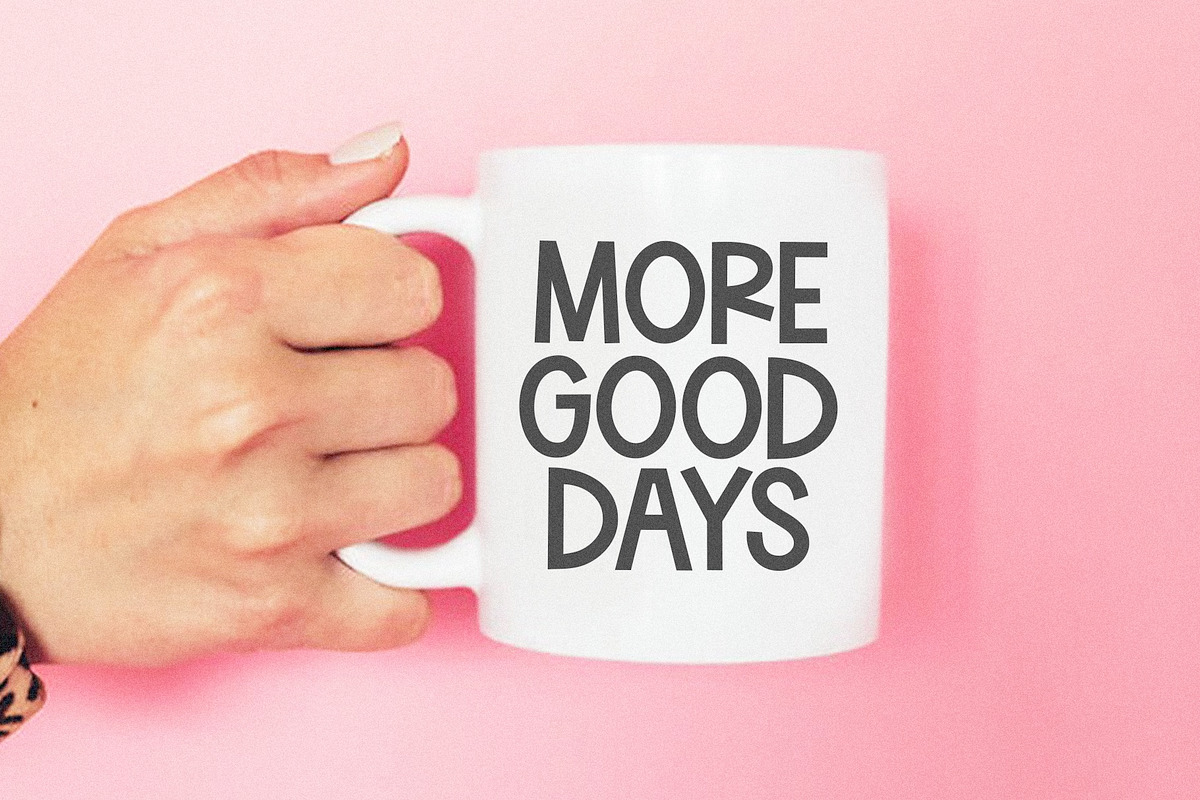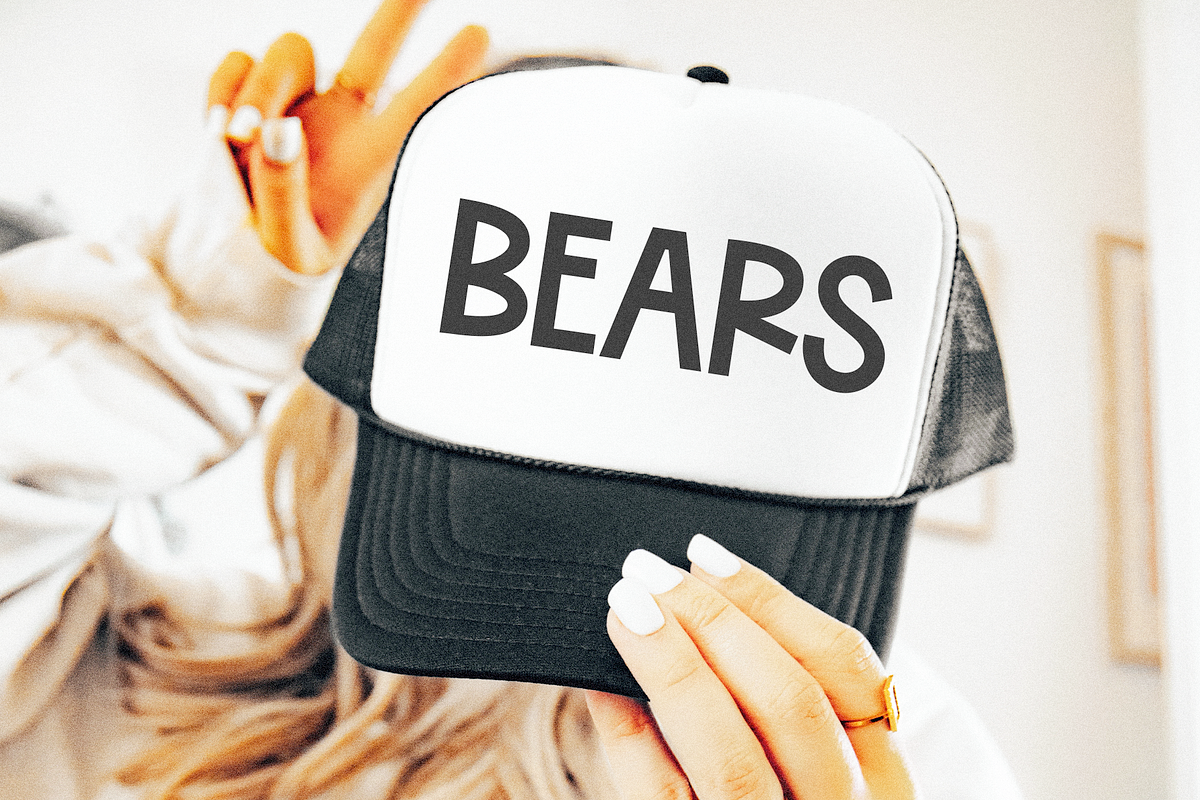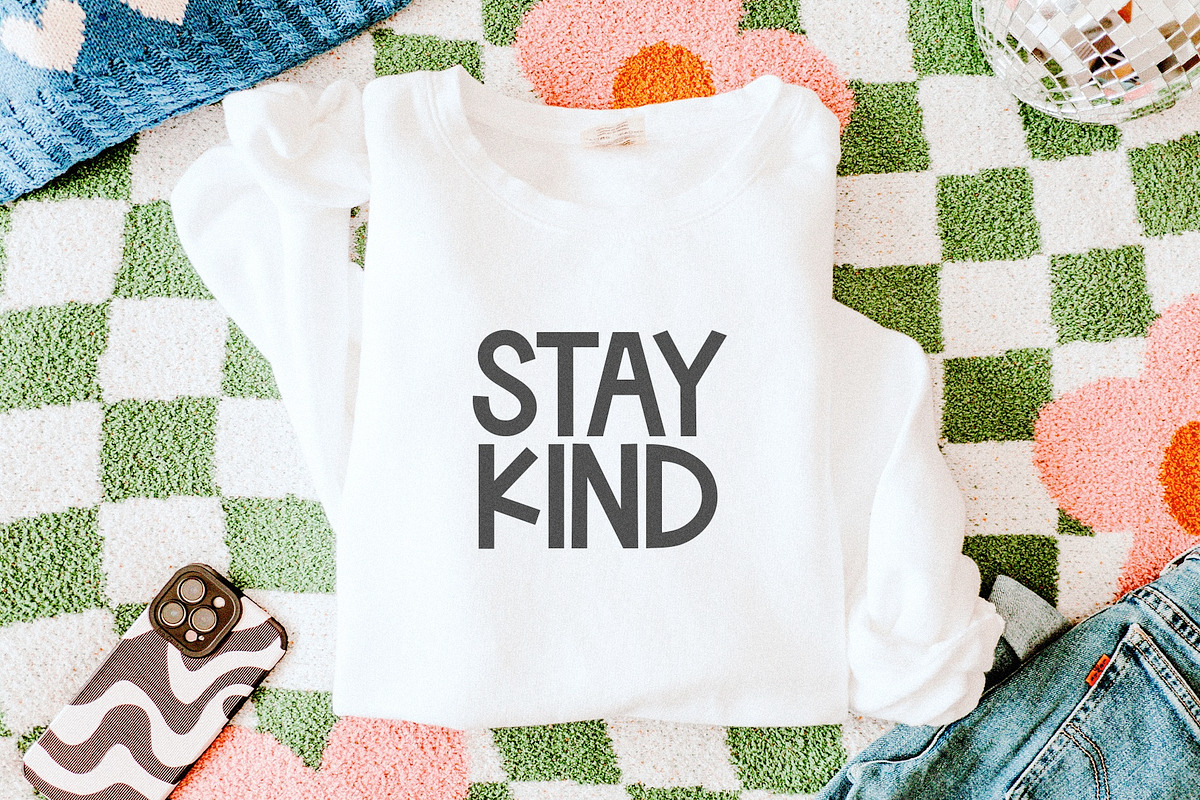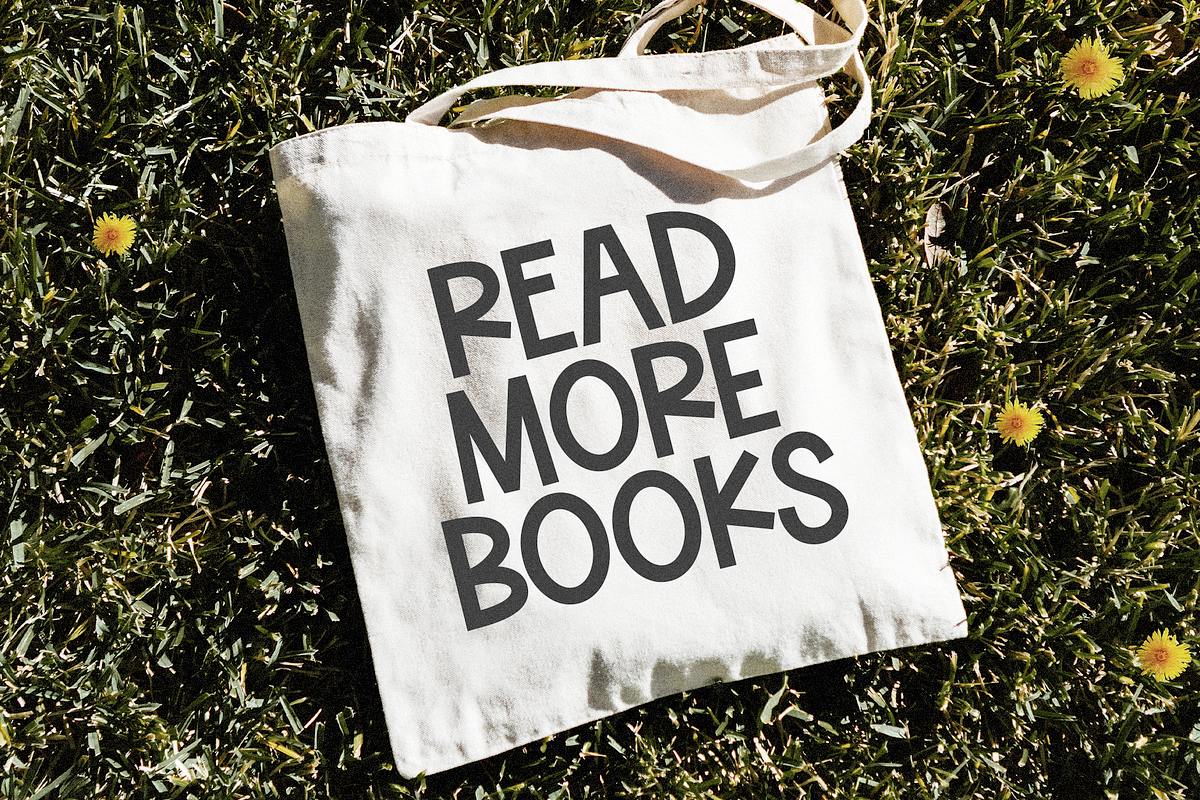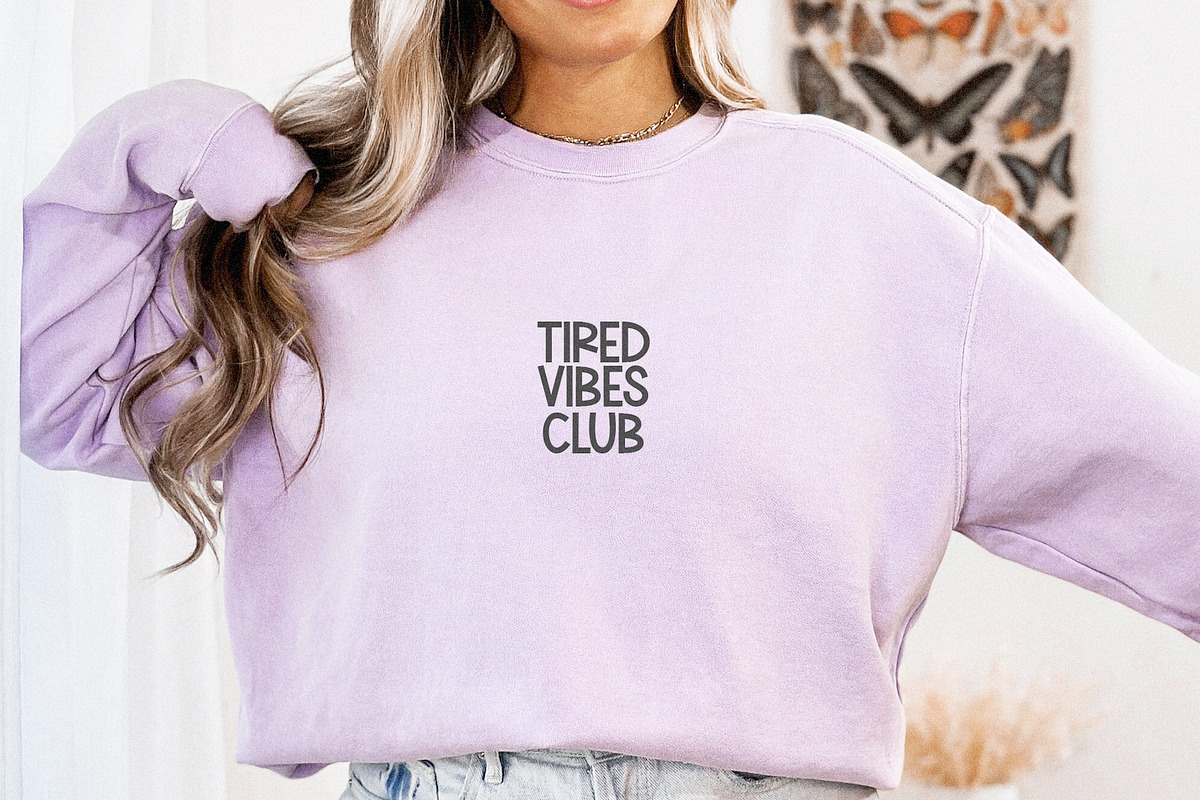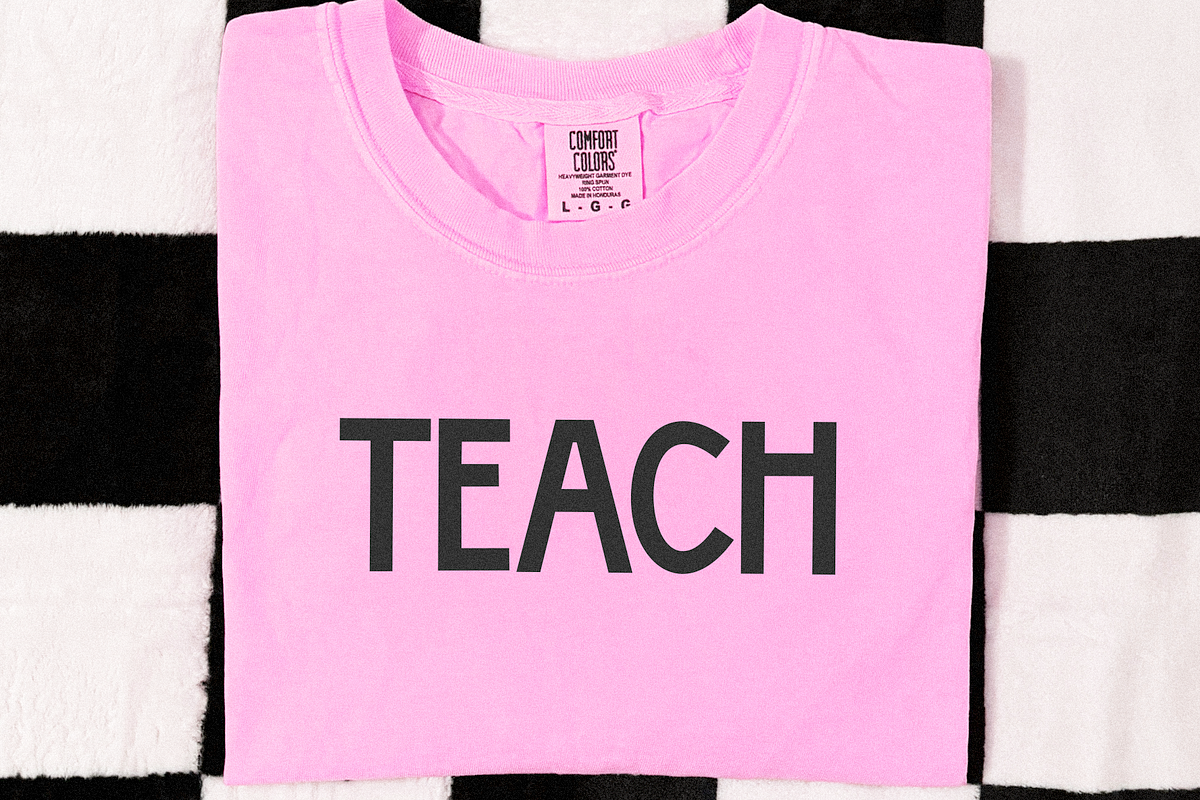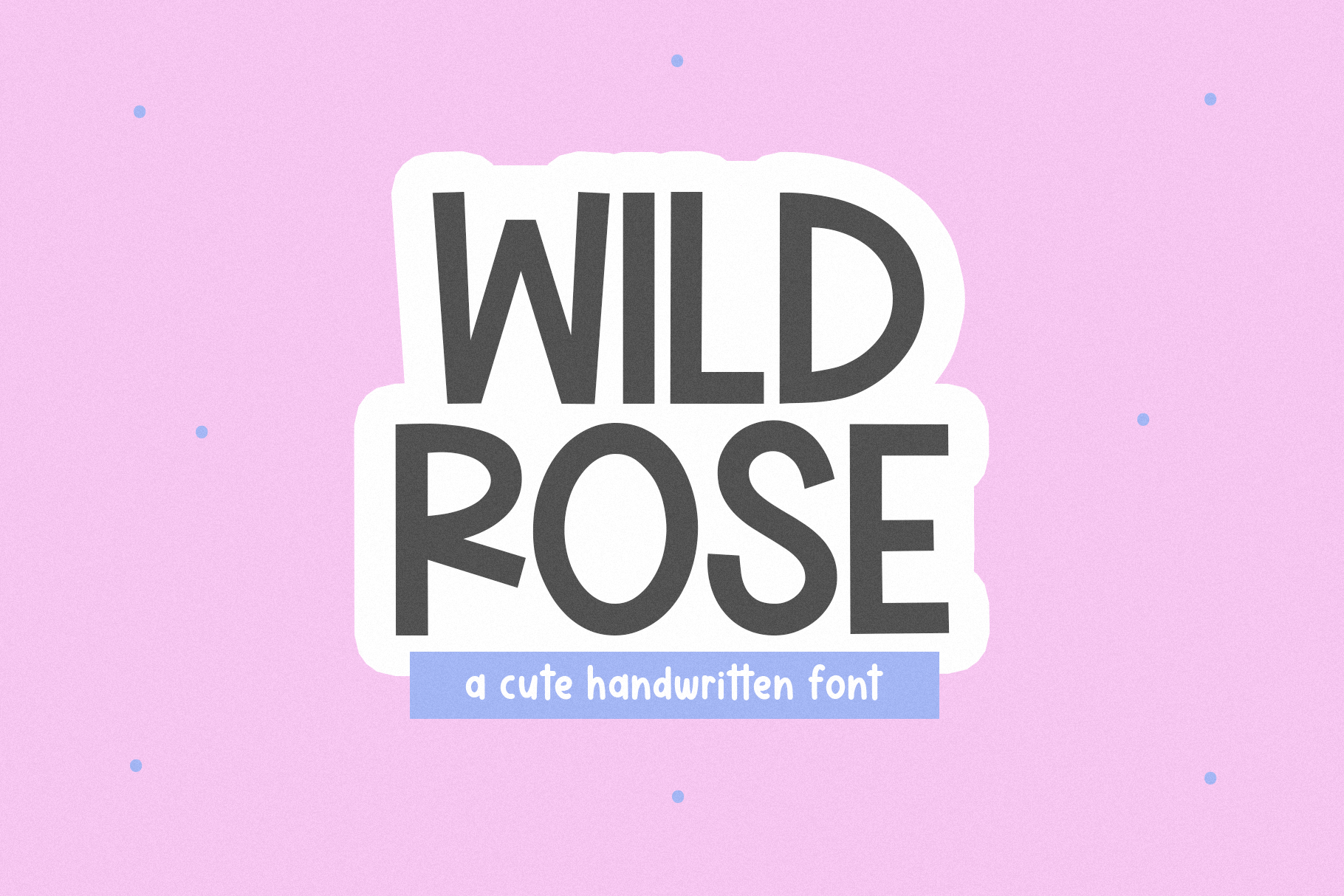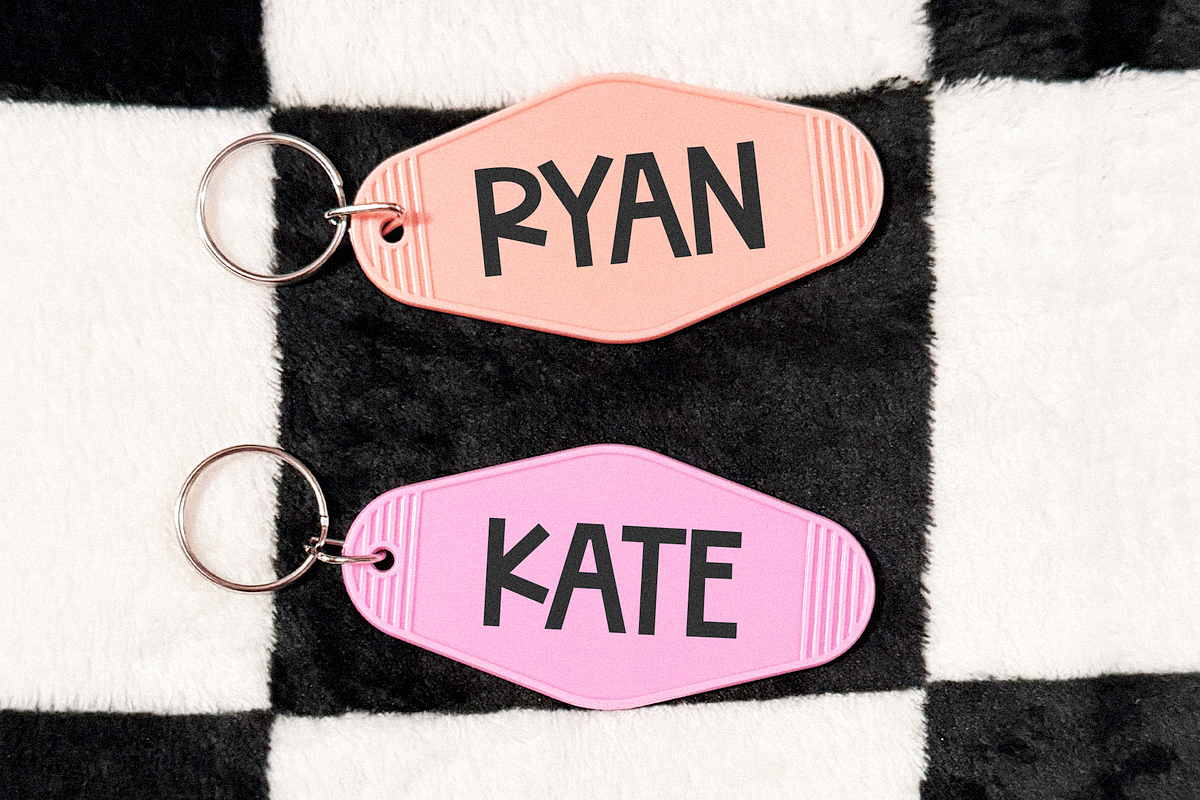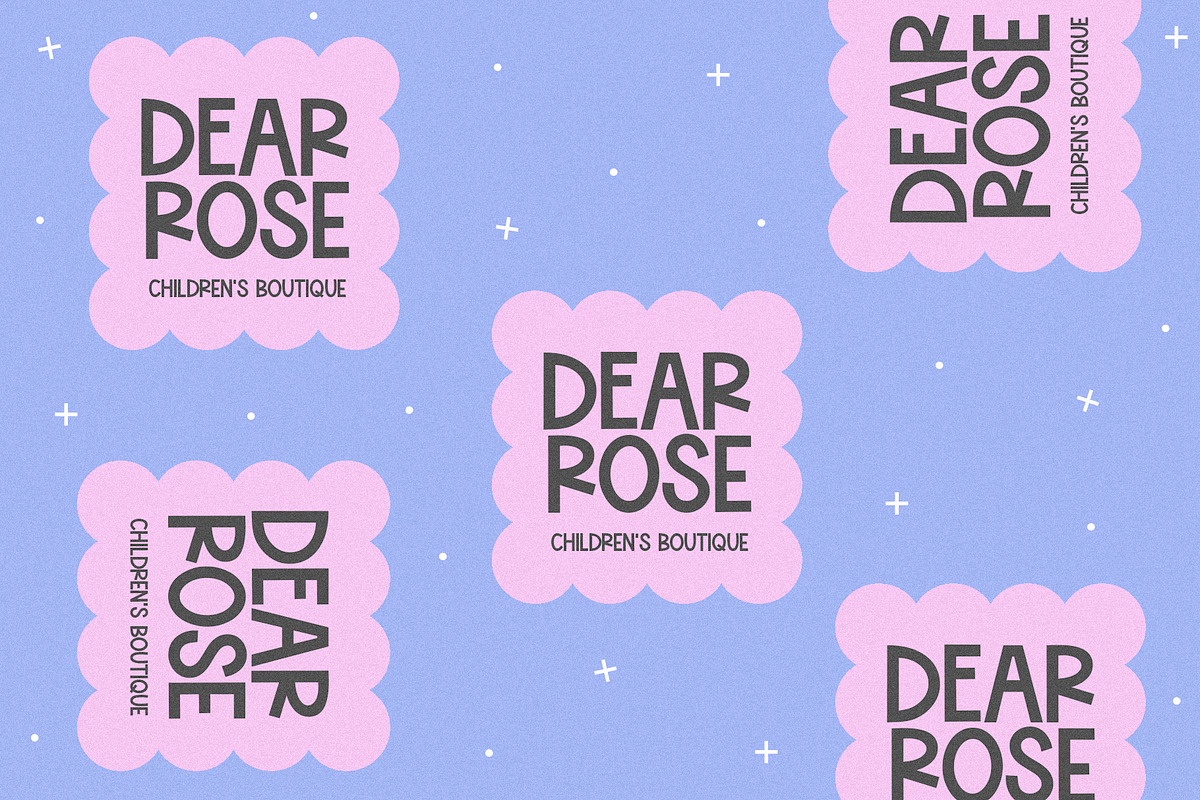
Wild Rose | Cute Handwritten Font
Wild Rose is a cute and quirky handwritten font.
This font is perfect for logos, cricut projects, shirts, svg files, canva, goodnotes, lasers, teachers and more!